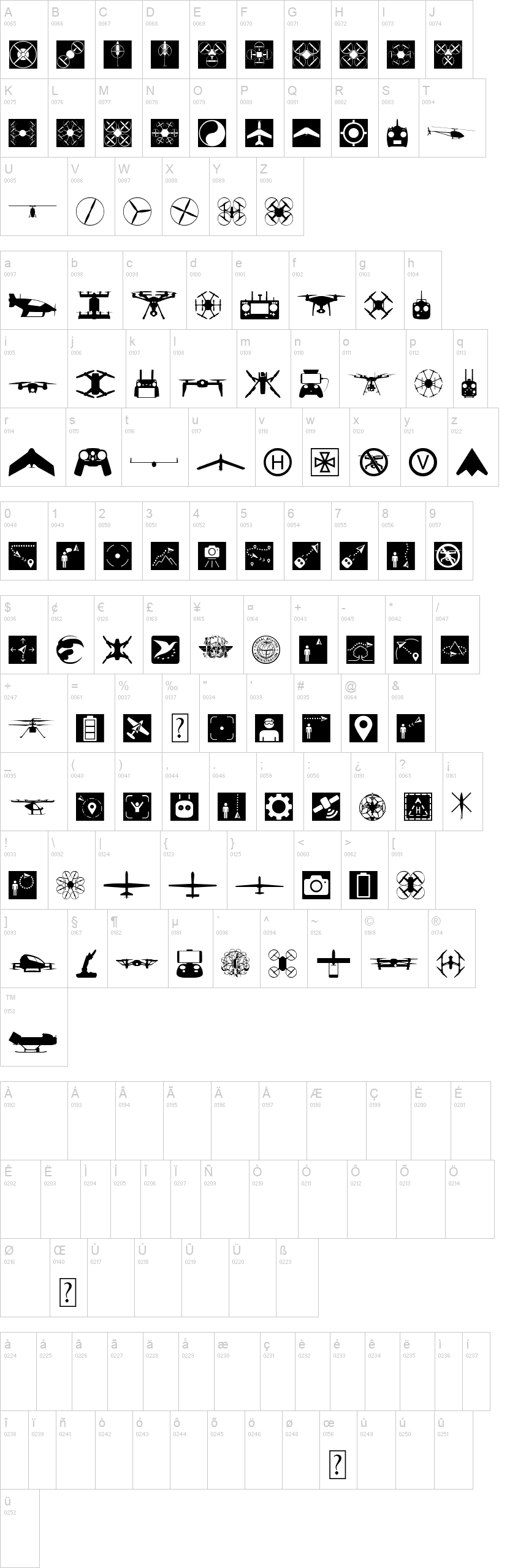
Note of the authorIcons and symbols for unmanned aircraft systems (drones) and urban air mobility. General information at https://aviationplanning.design.blog/unmanned-aircraft-systems/